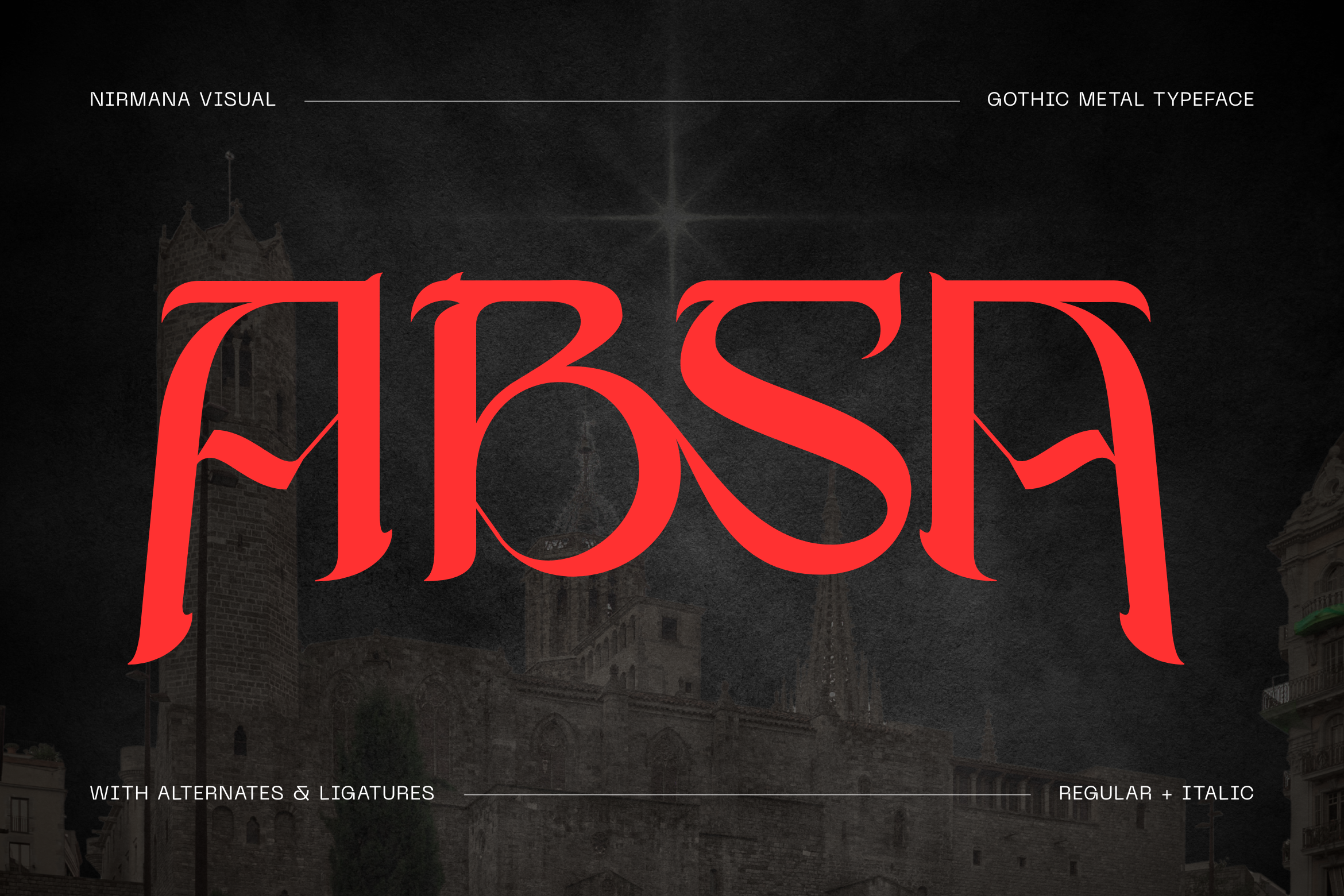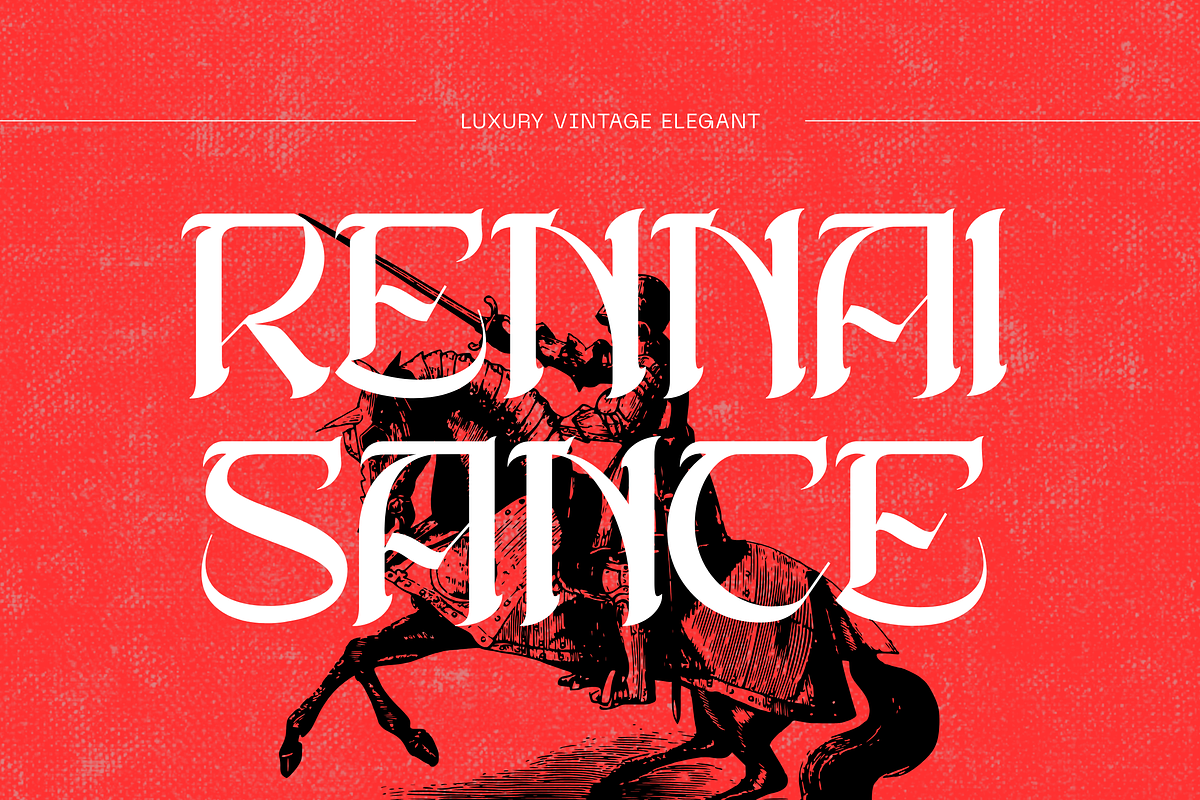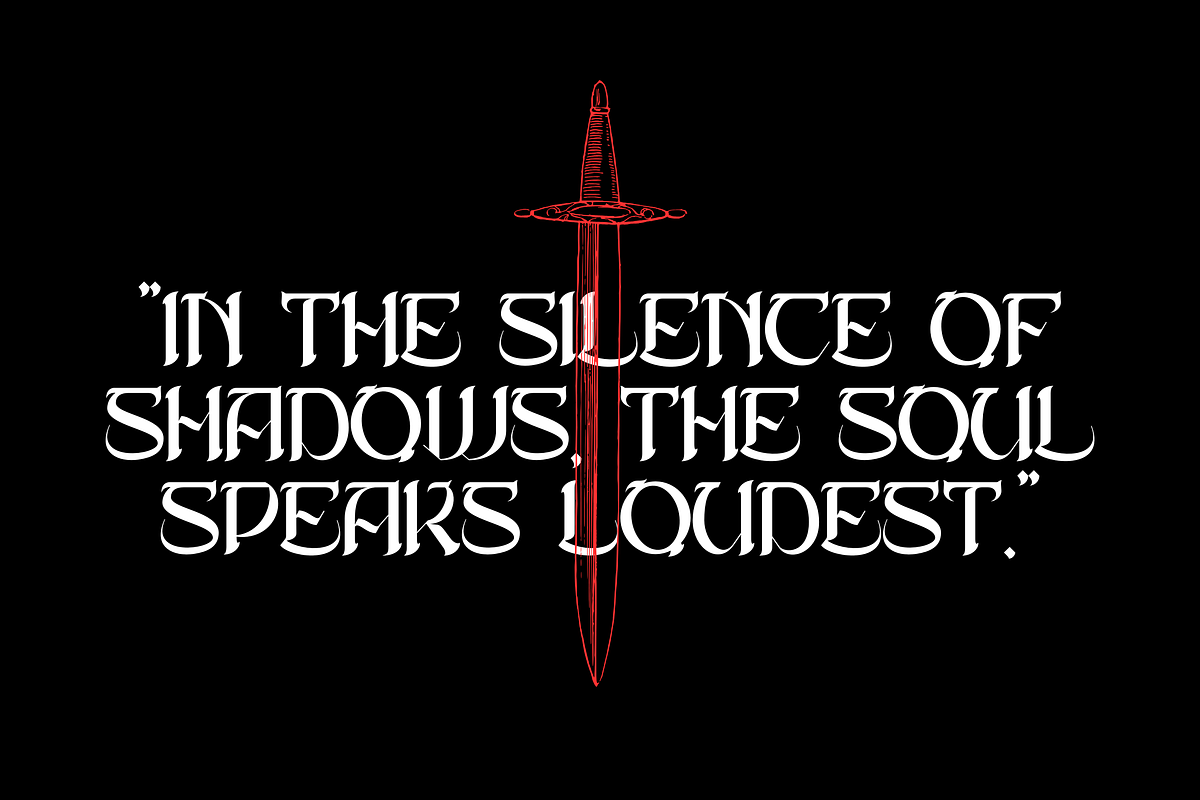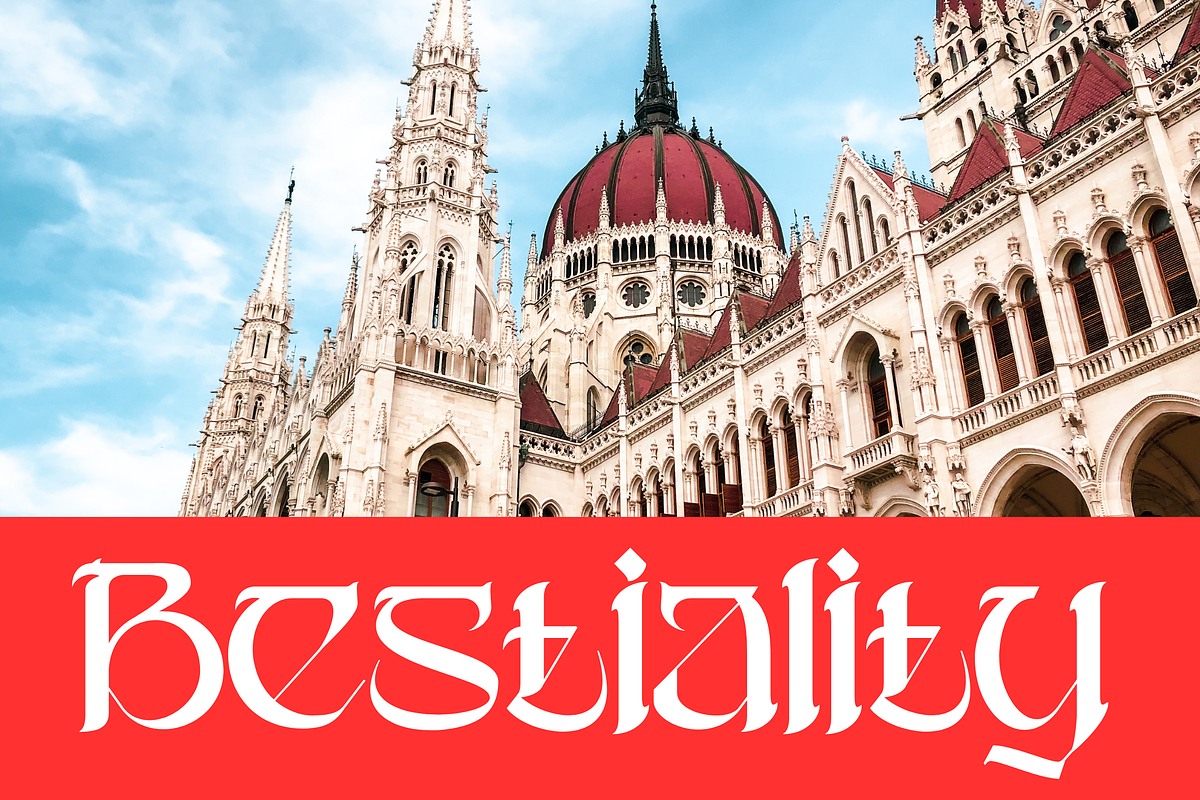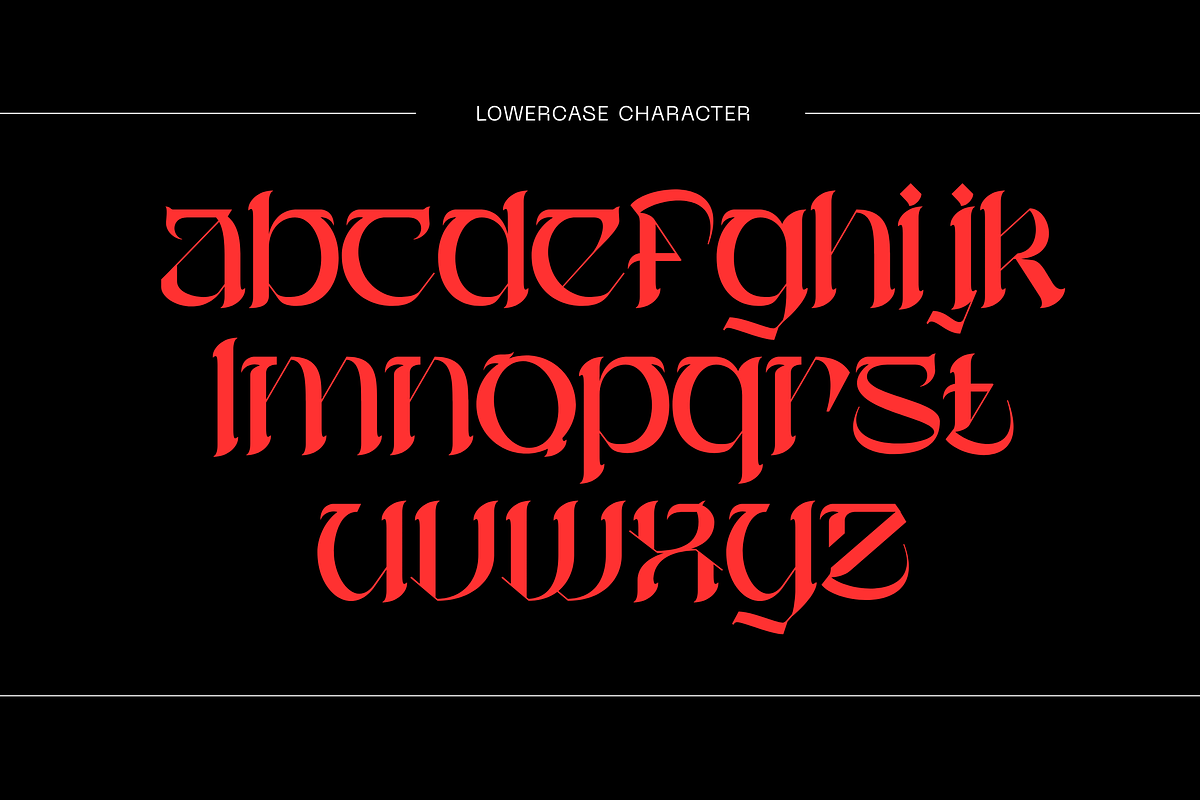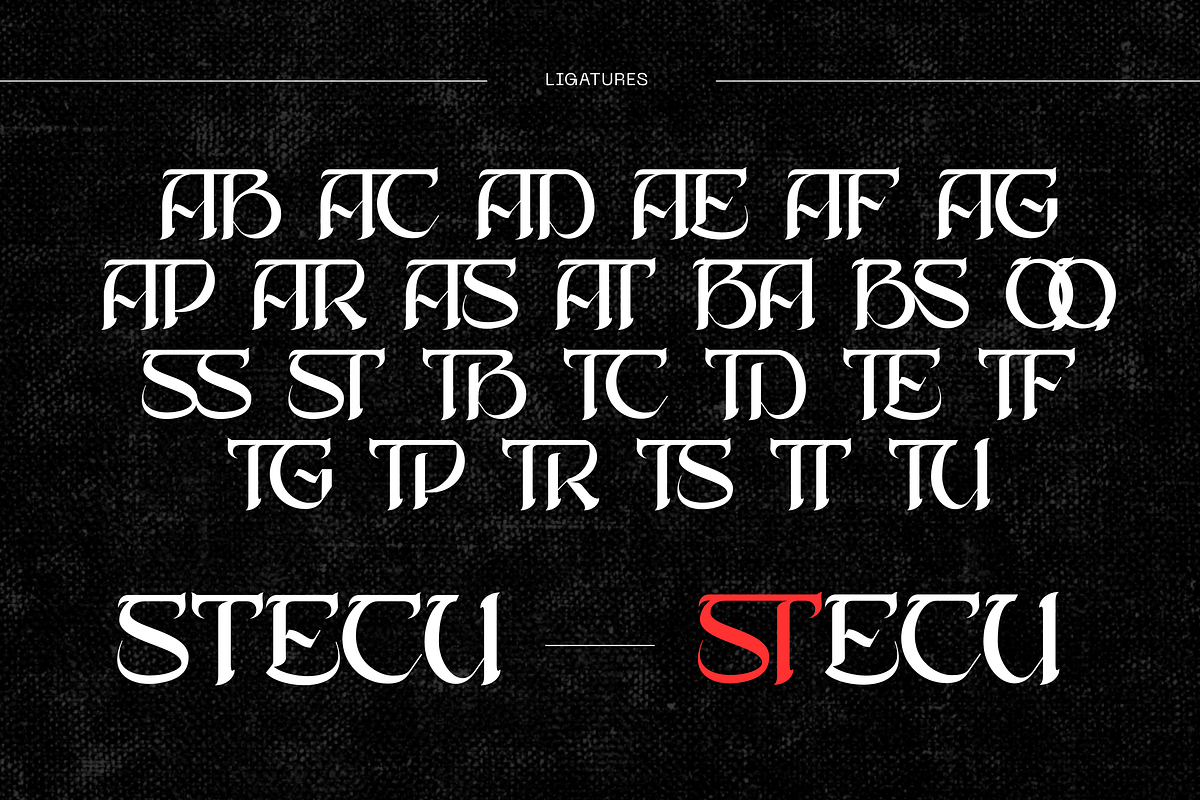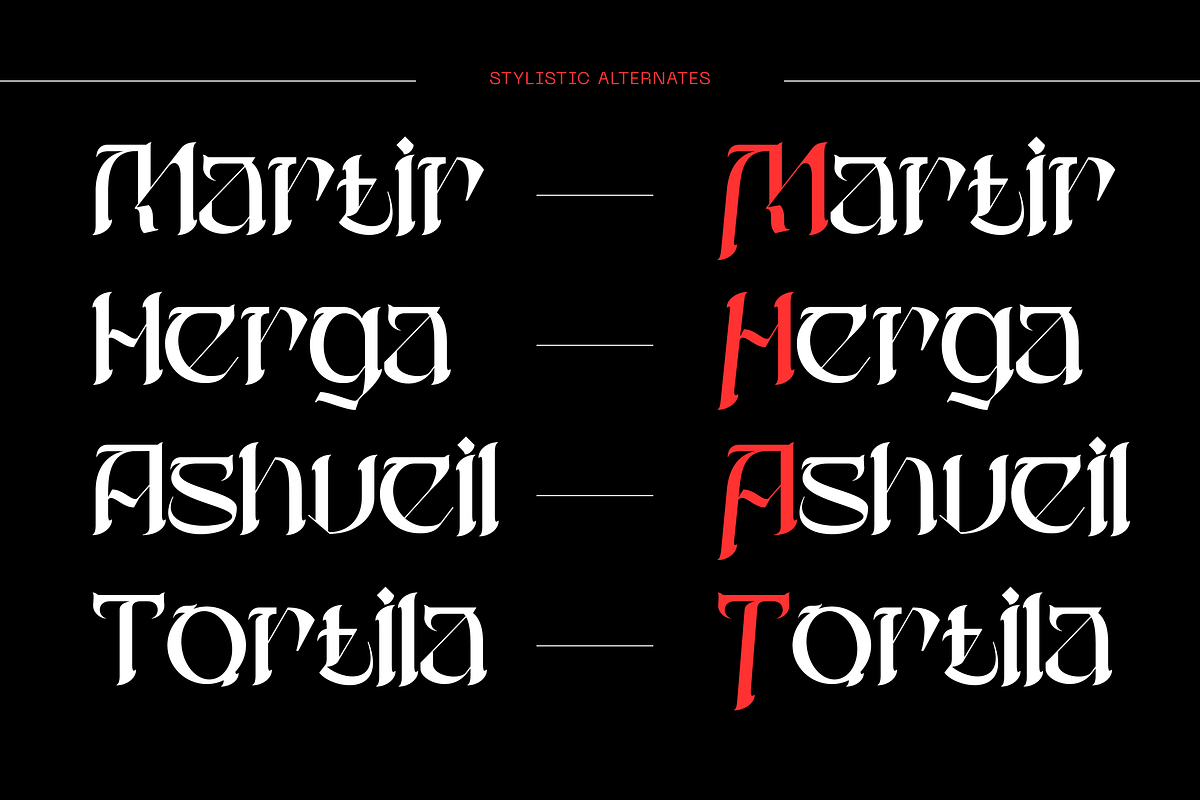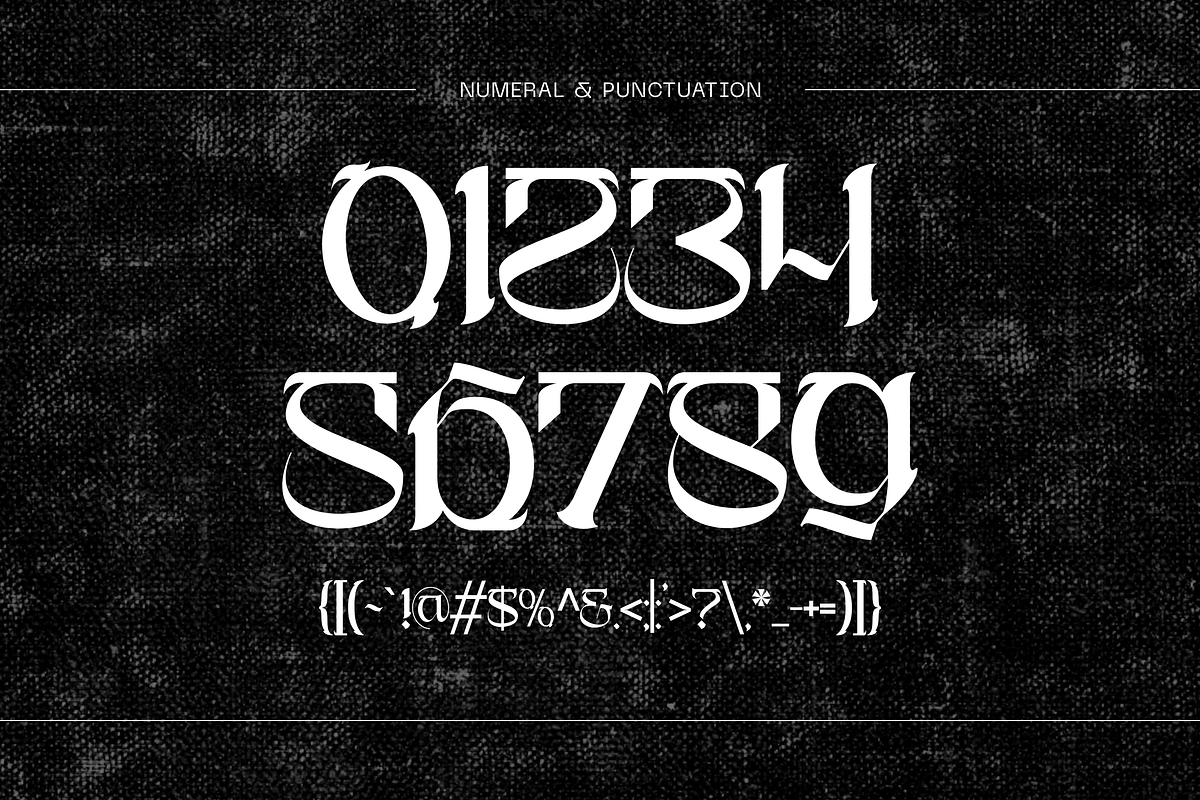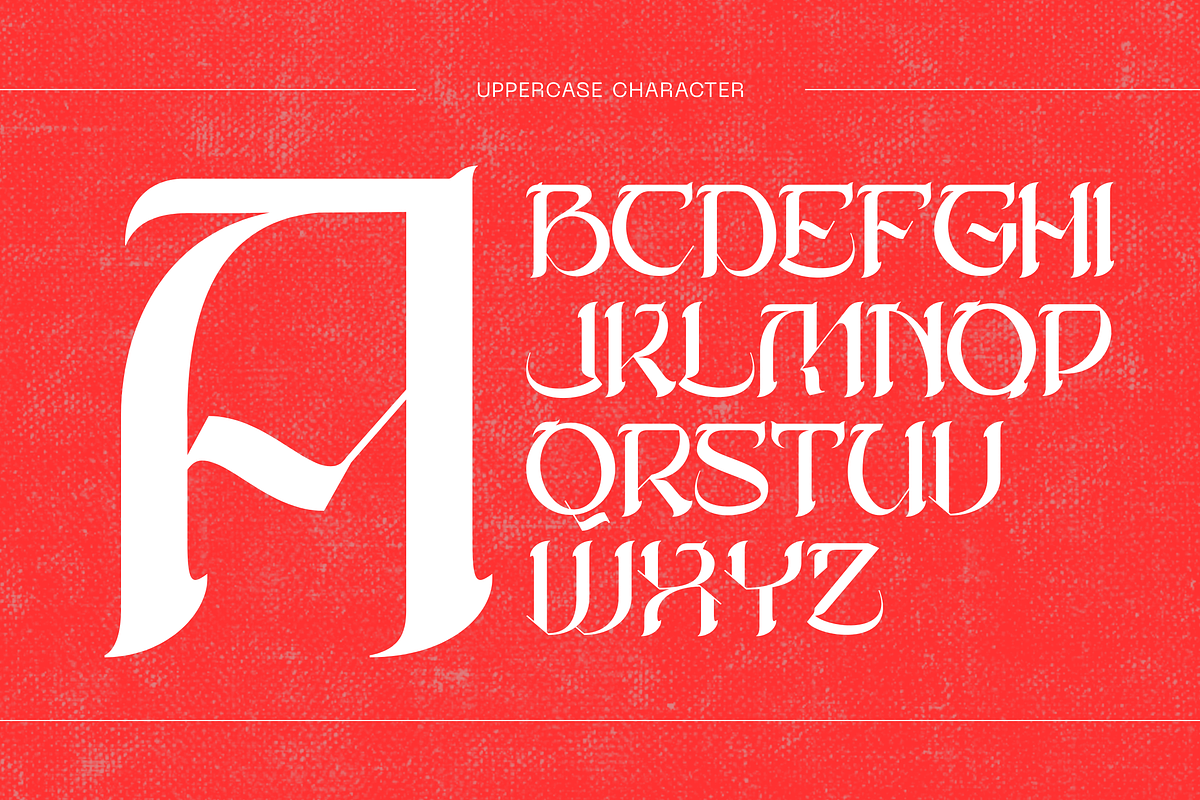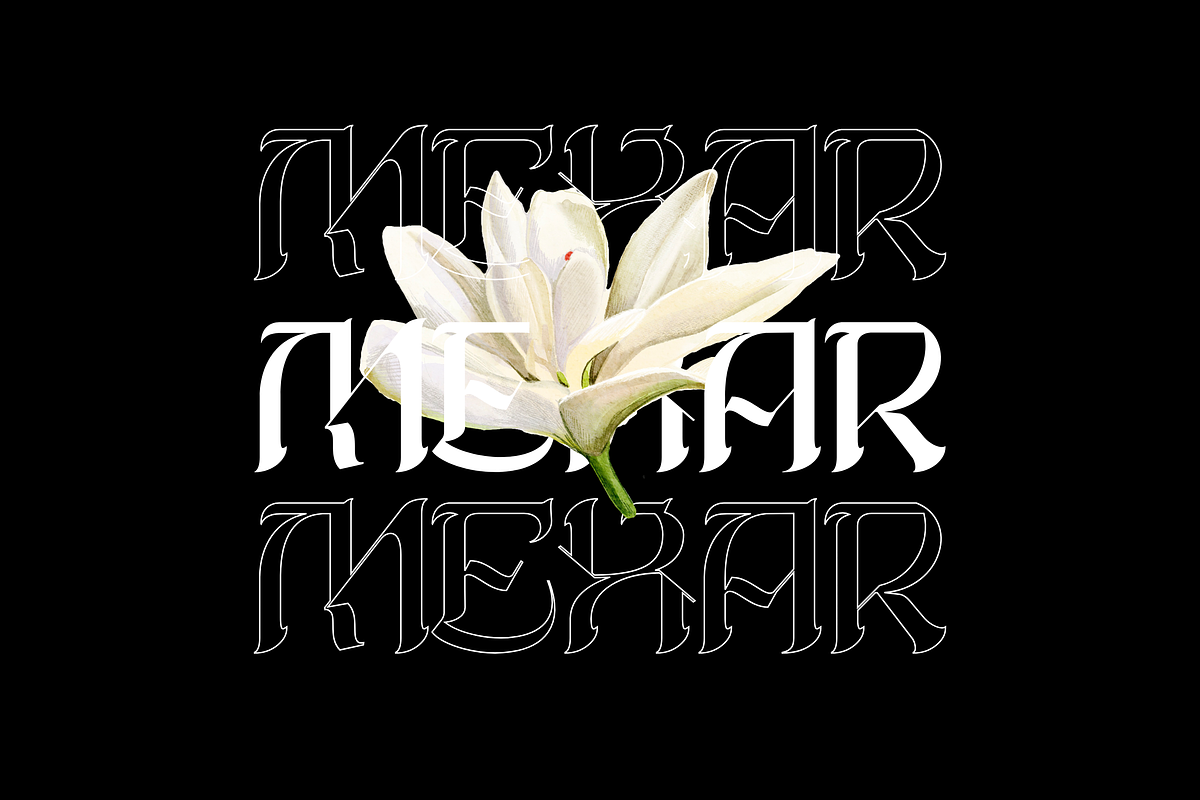
Absa Blackletter - Logo Font
Absa Blackletter - Branding Logo Font
Absa Blackletter offers beautiful typographic harmony for a diversity of design projects, including logos & branding, social media posts, advertisements & product designs.